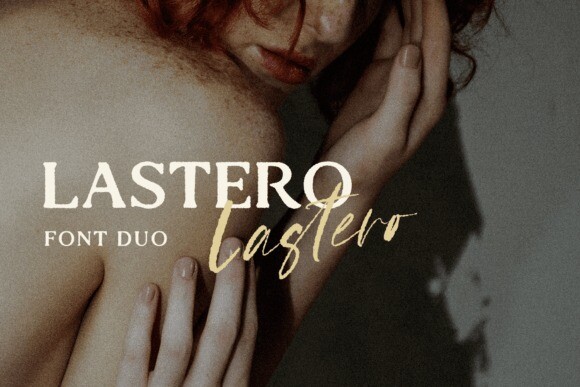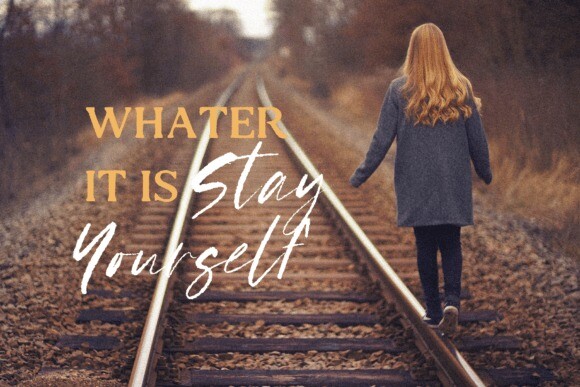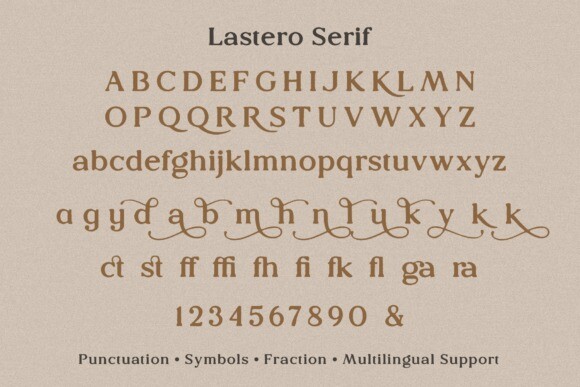
Lastero Font
Lasero Font this amazing handwritten font duo is light and elegant, will emphasize your personality in any project, and will charm you with its signature. This font includes alternates for Uppercase and Lowercase, and also a lot of ligatures for lowercase make your signature with them. You can use it to create logos, branding, t-shirts, book covers, stationery, marketing, blogs, magazines, cosmetics, signage, and more. This font is easy to use has OpenType features, and supports PUA encoding.